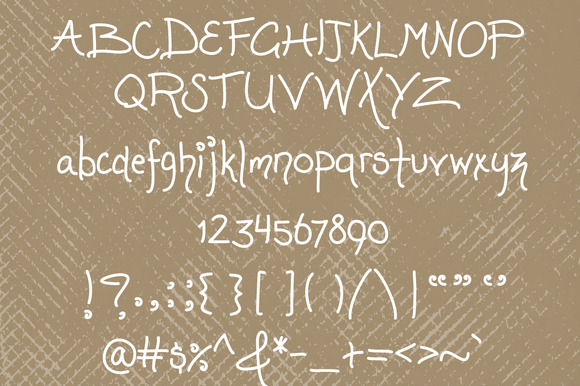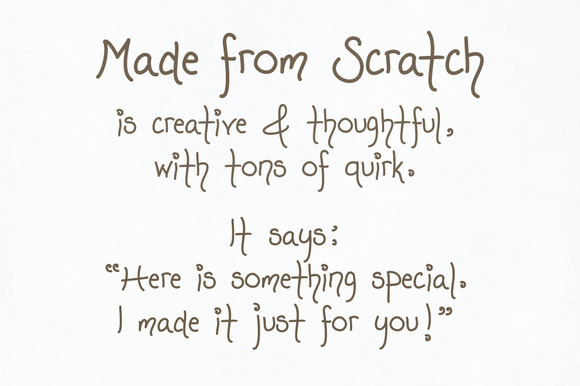
About Made from Scratch Font
Made from Scratch is a playful dancing font that is inspired by chalkboard menus and scrawlings on brown paper bags.
The letters are well rounded which makes the font feel super smooth. The font is based on real hand writing which ensures that every item you decorate with this font will get a personal touch.
Made from Scratch is great for decorating invites and cards, making beautiful handwritten signs or creating unique shirts.